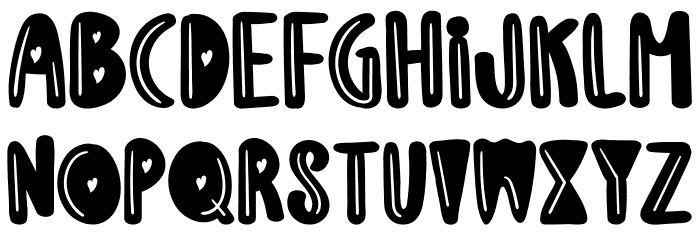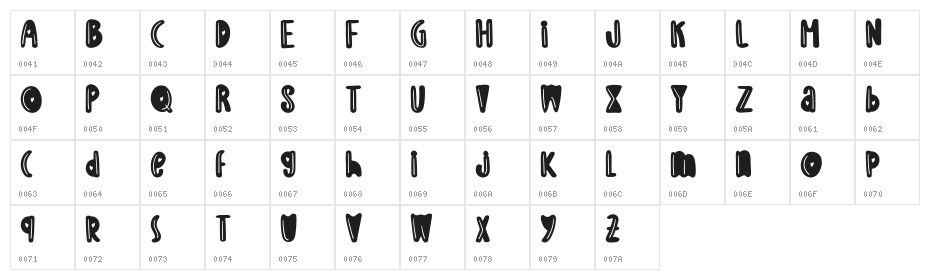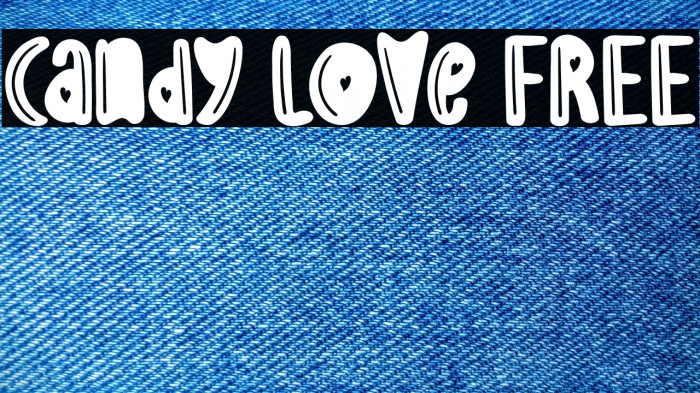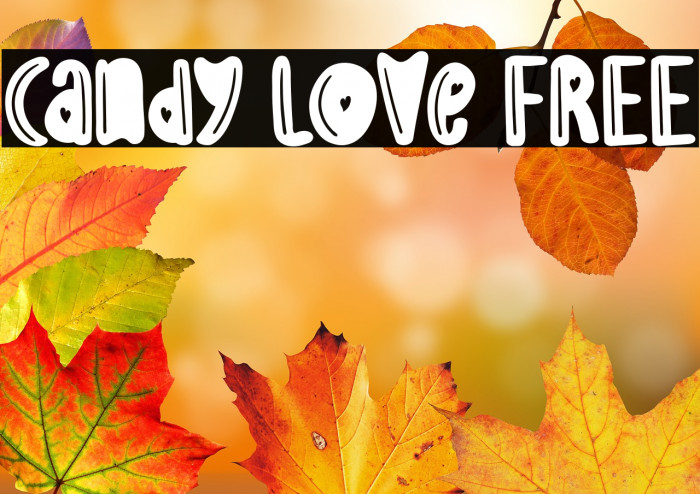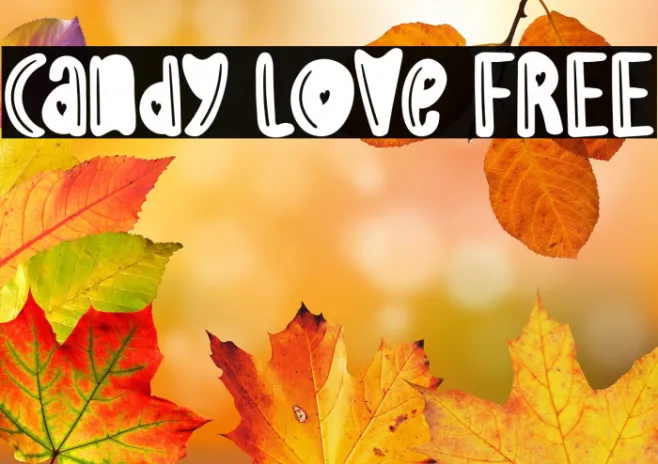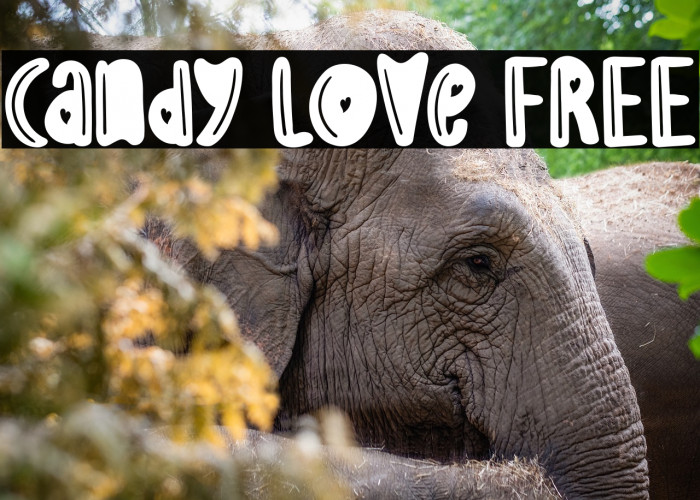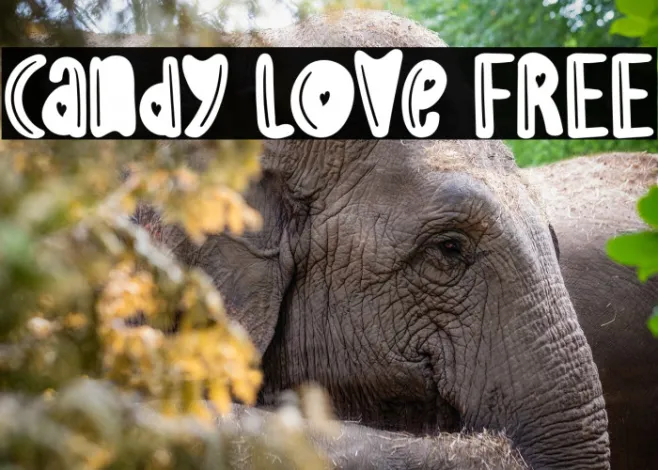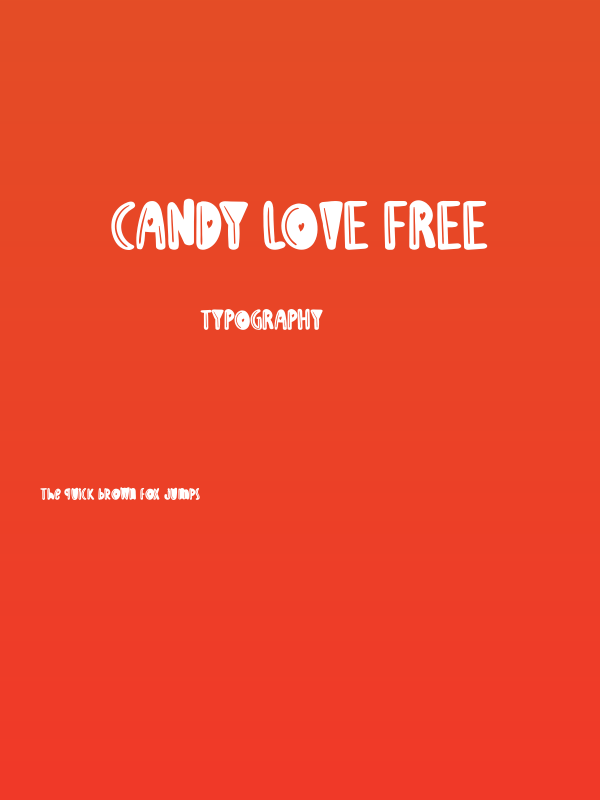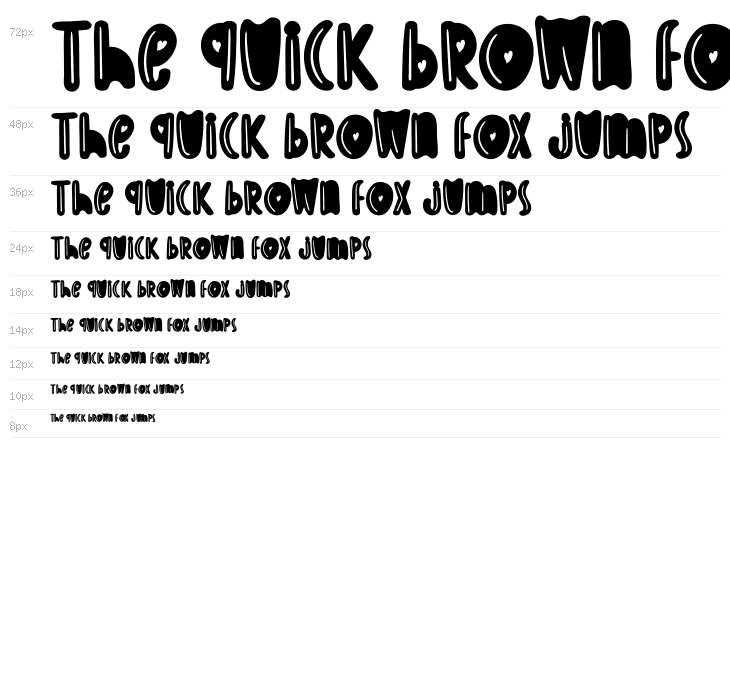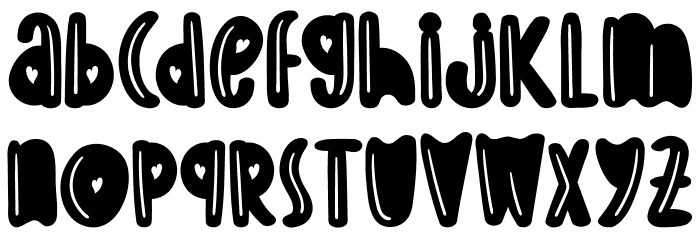
Candy Love FREE Font
Candy Love FREE Description
This playful and bold font features thick, rounded letters with a whimsical touch. Each character is designed with a unique flair, incorporating heart shapes and playful curves that give it a lively and fun appearance. The font's boldness makes it stand out, while its rounded edges soften the overall look, making it approachable and friendly. It is particularly suitable for projects that aim to convey joy, creativity, and a sense of fun. The font's distinctive style is perfect for capturing attention and adding a touch of personality to any design.